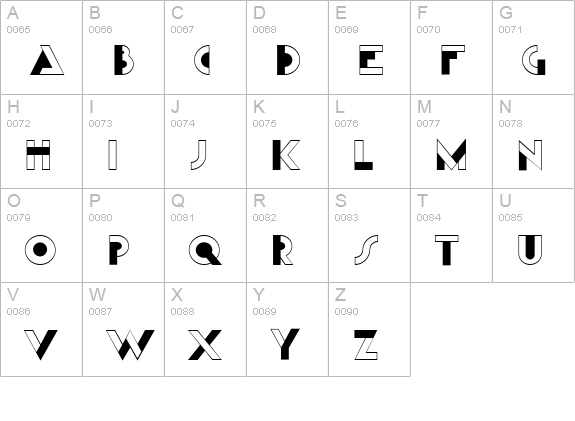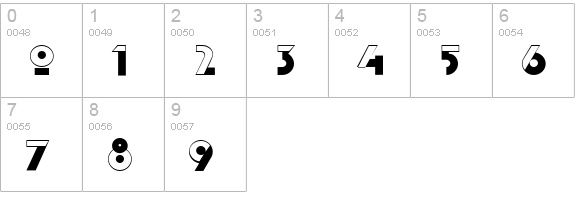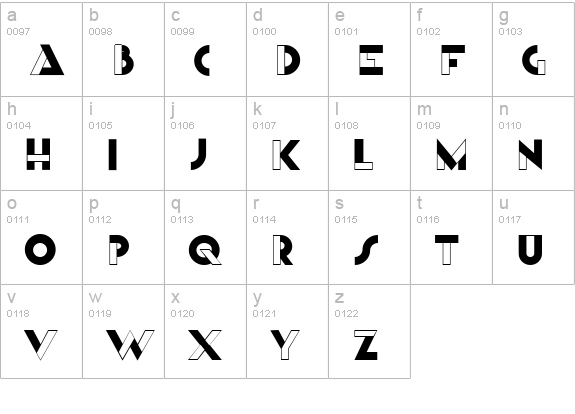
CCDutchCourage-BlackAndTan is a bold and striking font that exudes confidence and sophistication. With its unique blend of modern style and classic elegance, this font is sure to make a statement in any design project. The sharp lines and sleek curves of CCDutchCourage-BlackAndTan create a powerful visual impact, perfect for headlines, logos, and other prominent text elements. What sets CCDutchCourage-BlackAndTan apart is its versatility - it can be used for both formal and informal designs, adding a touch of flair and personality to any project. Whether you're creating a sleek modern website or a vintage-inspired poster, this font will elevate your design to the next level. Best of all, CCDutchCourage-BlackAndTan is available for free download at FontsMarket.com. Now you can access this premium font without breaking the bank, making it an ideal choice for designers on a budget. Don't miss out on the opportunity to add CCDutchCourage-BlackAndTan to your font collection and take your designs to new heights.